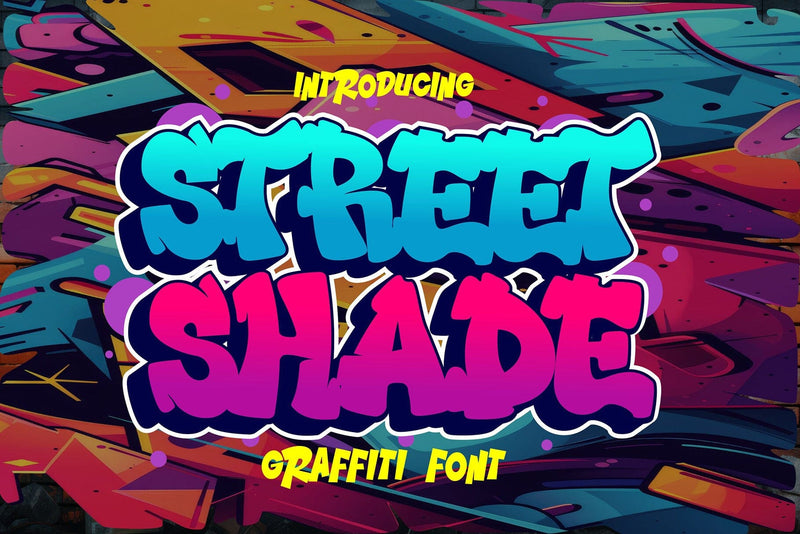
Street Shade - 3d Layered Graffiti Font
Street Shade is a bold and dynamic 3D layered graffiti font designed to bring an urban, street-style edge to your projects. Featuring two distinct styles—solid and hollow shadow, this font offers versatility for creating striking, high-impact designs. Its layered effect enhances the depth and dimension, making it perfect for bold typography with a graffiti-inspired attitude.